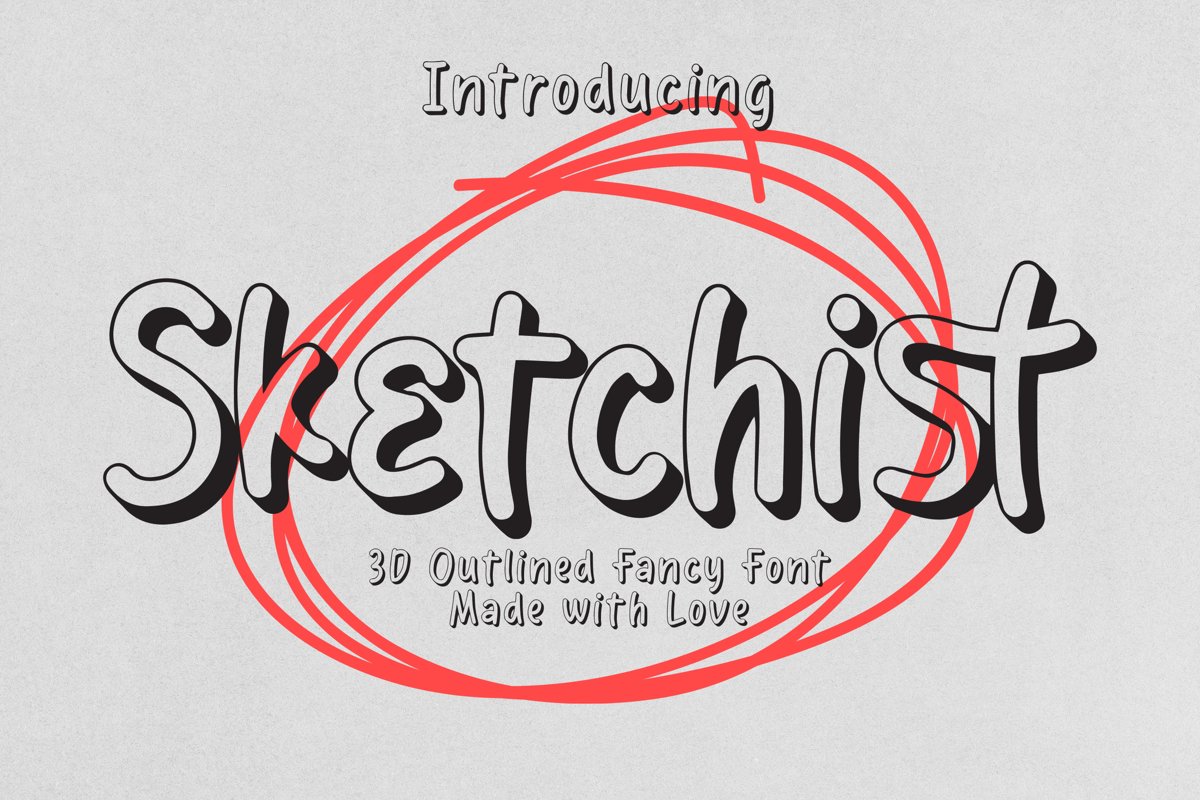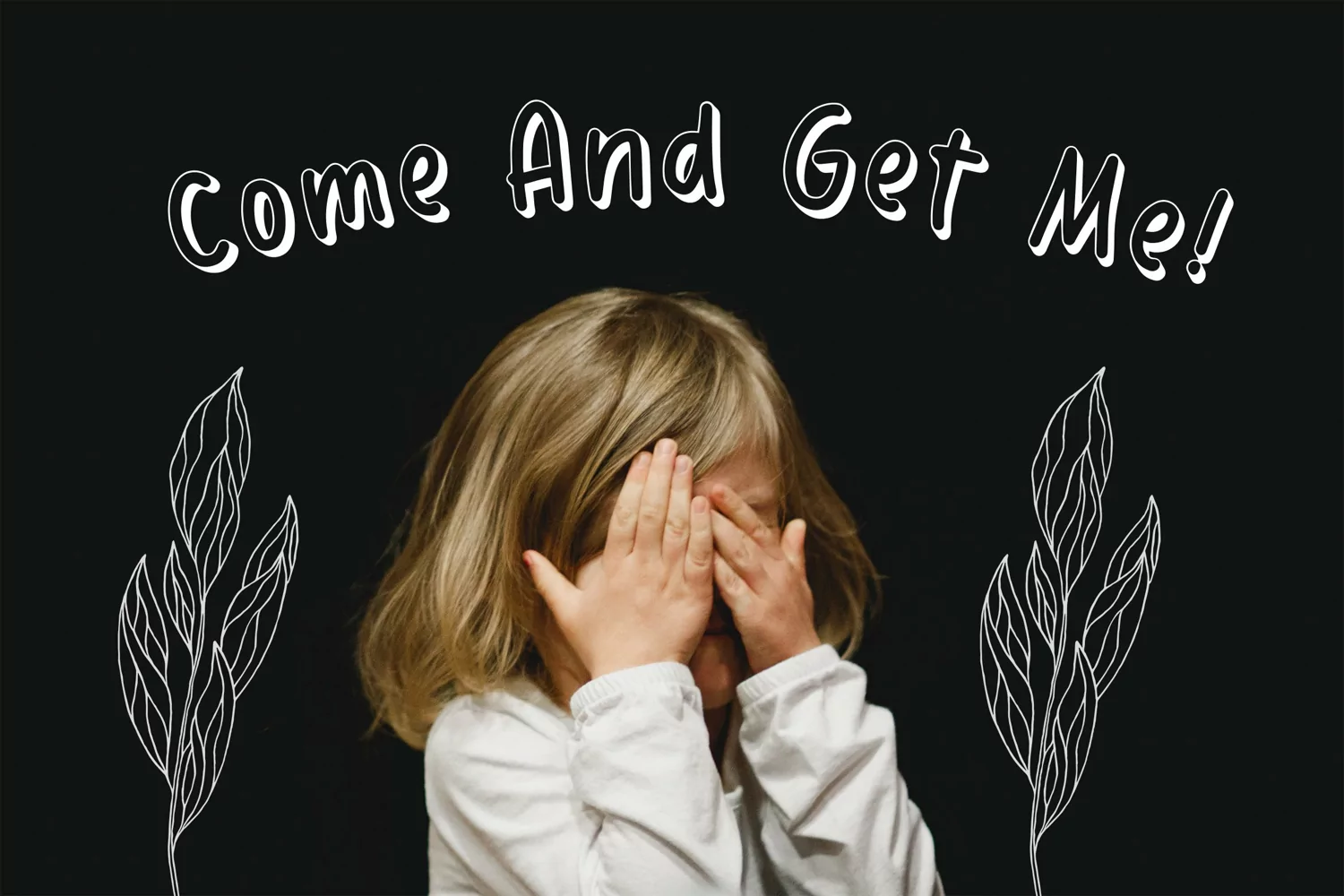
Sketchist - 3D Outlined Fancy Font that contain lowercase, uppercase, symbol, and also support multi language. There’s a lot of ligatures in this font. This Font also comes with ligatures, alternates and many more. This font is suitable for fashion, branding, catalog and other design that you want to create.